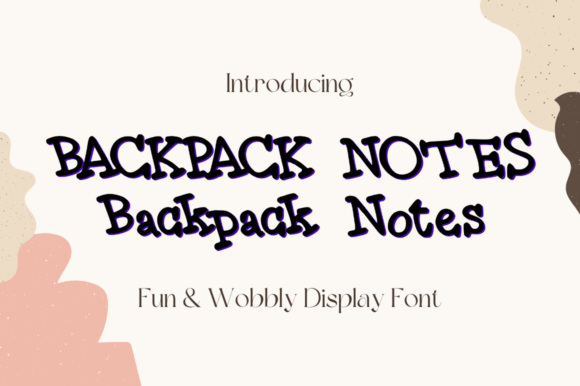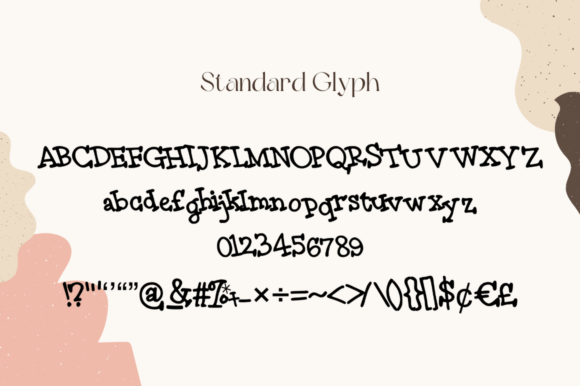
Backpack Notes Font
About the Backpack Notes Font
Make a bold statement with Backpack Notes Font, a powerful and memorable font. Backpack Notes is a whimsical and wobbly display font with a playful, cartoon-inspired look. Its hand-drawn, bouncy style adds a lighthearted charm, making it ideal for children’s books, posters, school projects, crafts, and other creative work that needs an extra splash of fun.
Backpack Notes Font shines in headlines, short titles, and playful branding elements where its whimsical nature can be fully appreciated. It’s also a great choice for eye-catching posters or packaging for children’s products or similarly lighthearted brands. However, its informal style makes it unsuitable for body text or UI elements requiring high readability. Avoid using it in lengthy paragraphs or situations demanding a clean, professional aesthetic.
Pairing Backpack Notes with a clean sans-serif like Open Sans for body copy creates a strong contrast, balancing the font’s playful energy with clear, legible text. Alternatively, a more geometric sans-serif such as Futura could provide a modern counterpoint, enhancing Backpack Notes’ quirky charm. For a more vintage feel, consider pairing it with a classic serif font like Garamond.
The font projects a friendly, approachable personality, best suited for brands targeting younger audiences or those emphasizing fun and creativity. Its overall mood is lighthearted and energetic, making it perfect for projects needing a touch of childlike wonder.
Backpack Notes Font Example